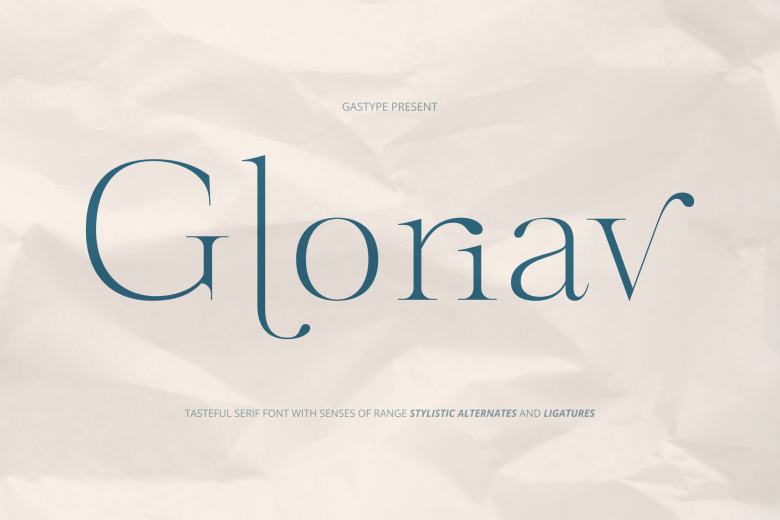
Gloriav Font
Gloriav is an elegant serif font with classic curves and intricate details, boasting smooth curves and rounded corners that catch the eye. Additionally, its rich selection of standard and discretionary ligatures can add finesse to your creative projects and any text.
The font’s alternate characters offer increased versatility, enabling you to design unique logos and quotes while meeting any number of design needs.
Gloriav Serif Font